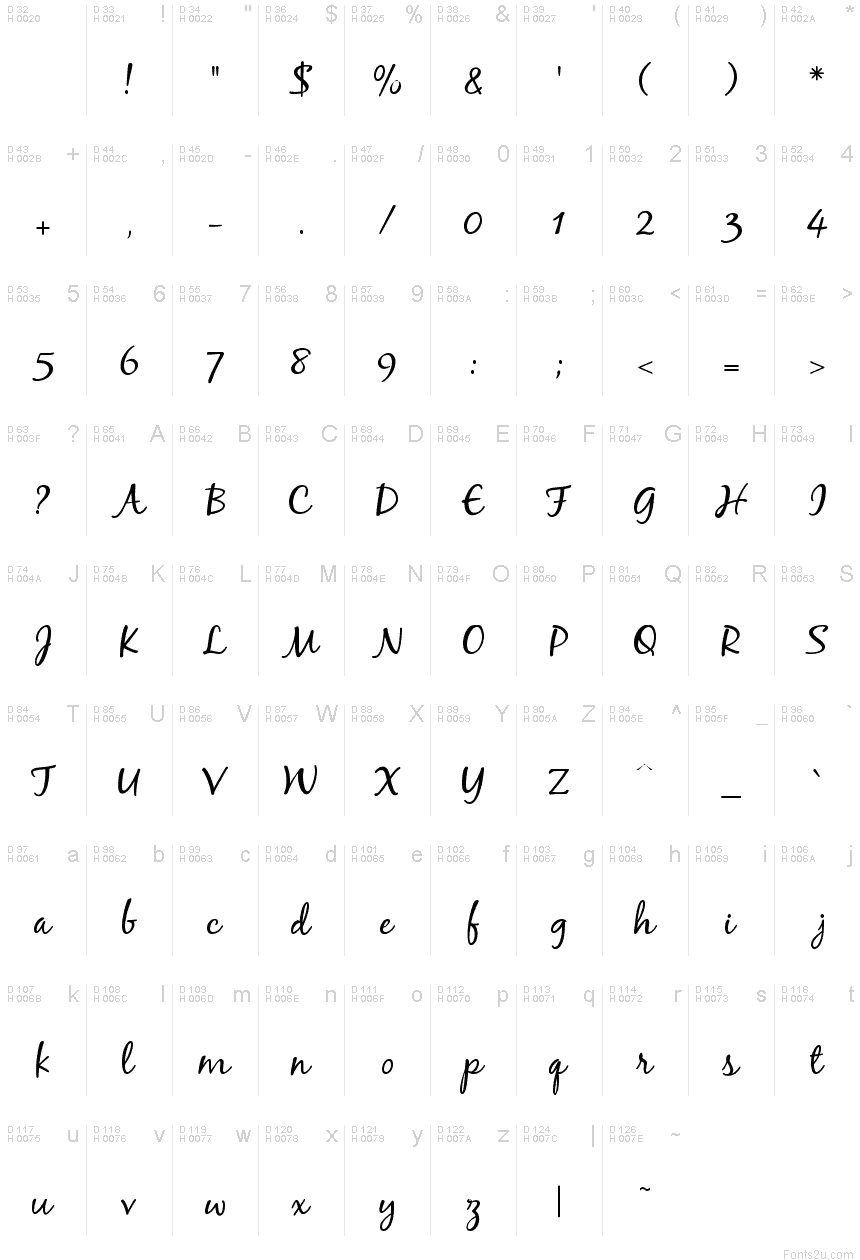
BlackJackRegular
BlackJack font by TYPADELIC is a free handwritten typeface from the BlackJack family, written with a quick, inky brush feel. The strokes swing from skinny to bold in one breath, with loose connections and a slightly mischievous slant that keeps words lively rather than precious.
Using BlackJack, you’ll get warm personality on logos, café menus, greeting cards, invitations, product labels, social graphics, and punchy poster titles. This free font reads best with a little breathing room and medium-to-large sizing—let the curves do the talking. Try pairing it with a crisp, no-nonsense sans for dates, prices, or longer copy.